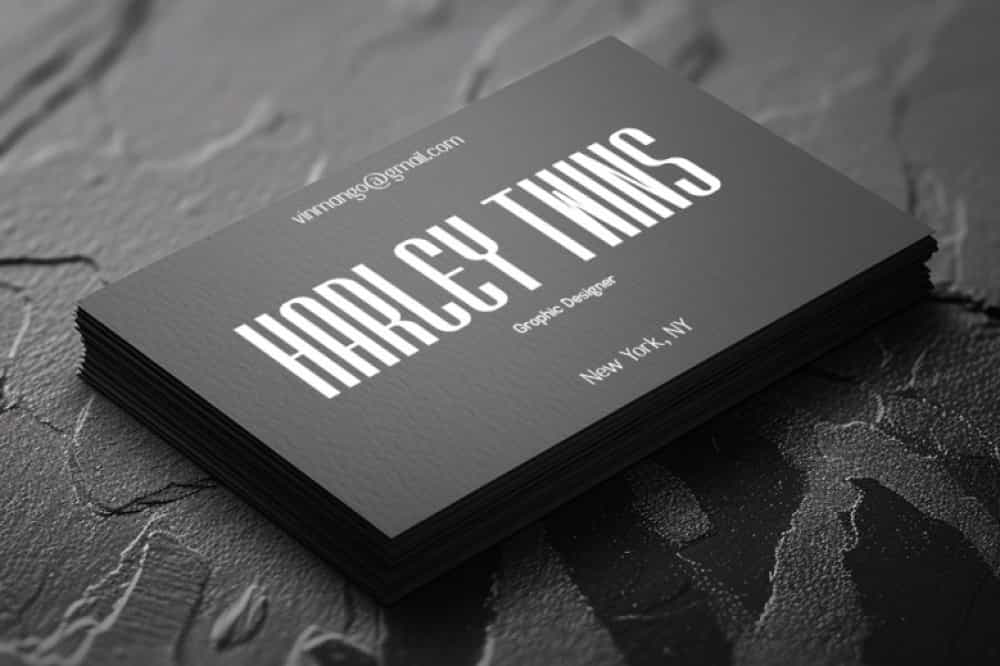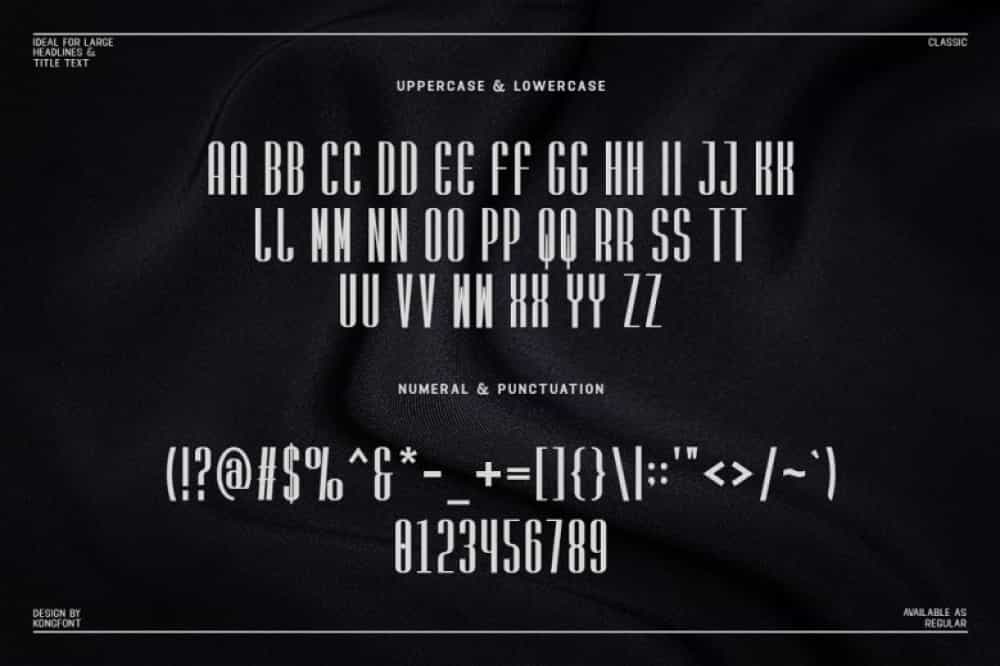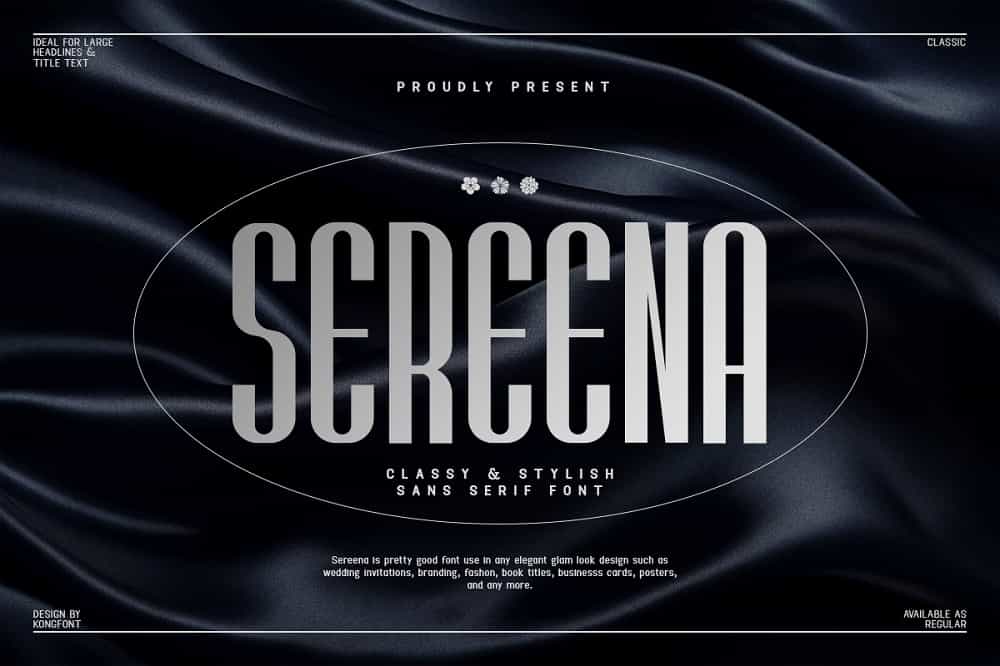
Sereena Font
Sereena is a new sans serif font family that has been designed to provide an elegant and simple look with a thick contemporary feeling to it. This font falls under the category of fonts that offer choices for those who want to use a sans serif font. Sereena Font has one characteristic that does not require extra characters in it. This font however can be easily seen whether the text size is small or large.